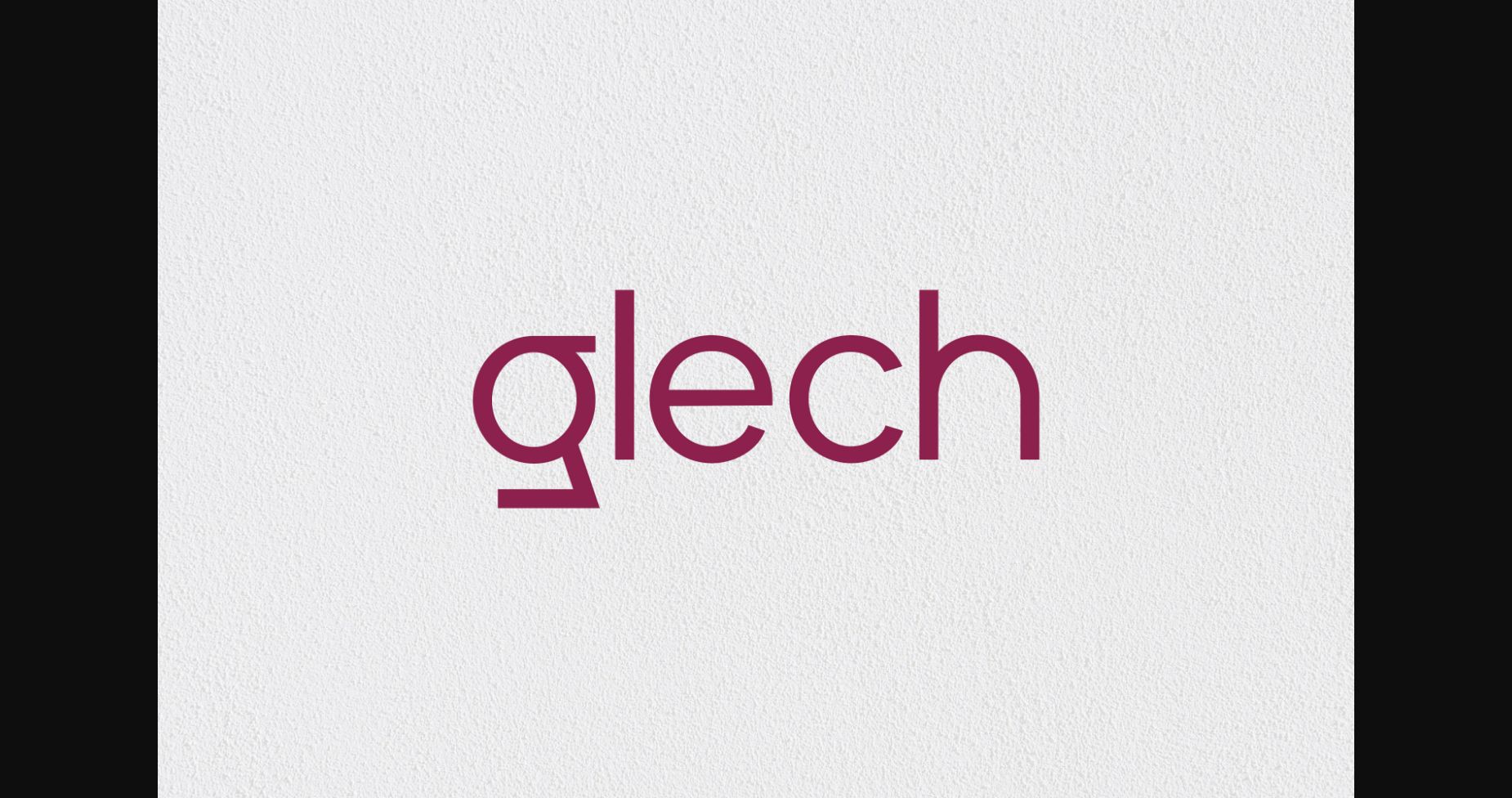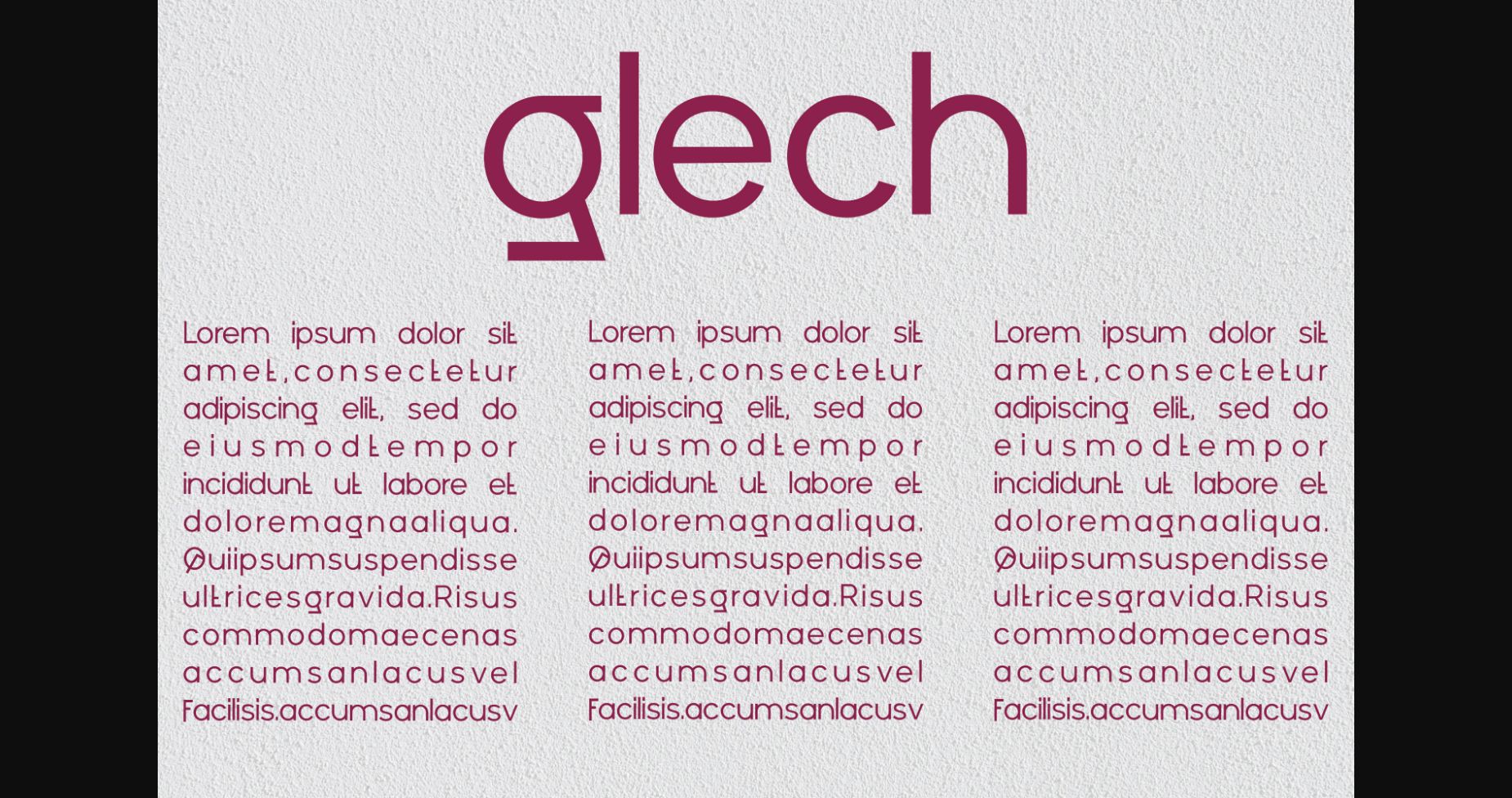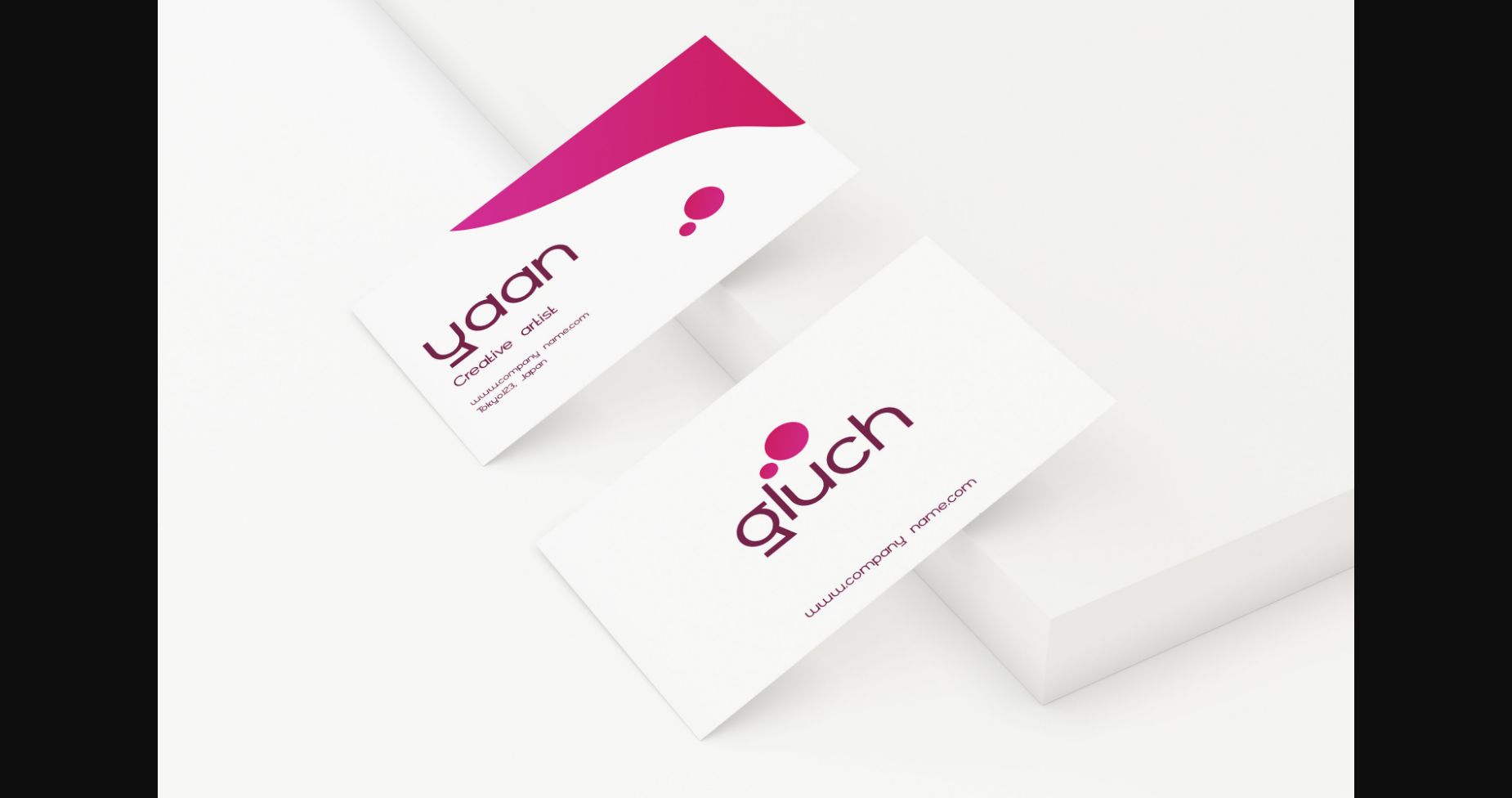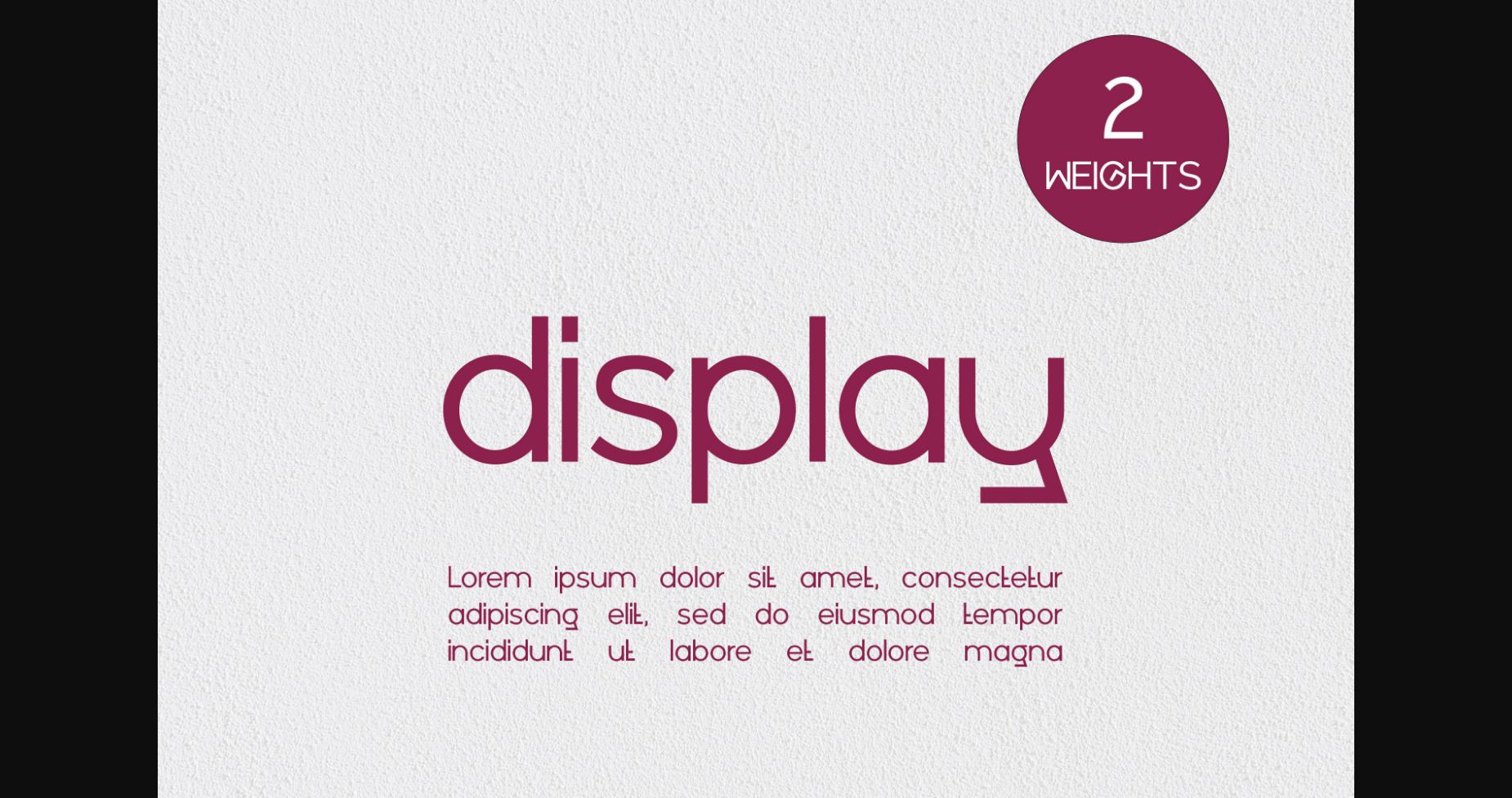
Glech Font
About Glech Font
Glech is a clean and modern looking sans serif font. Add this minimalist and techno styled font to your web designs, logos or pretty much anything that requires a smart, cool touch.